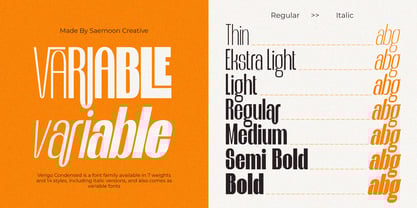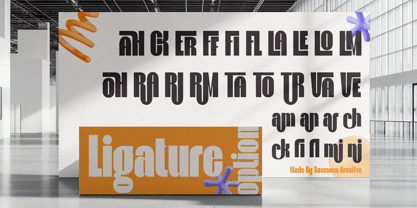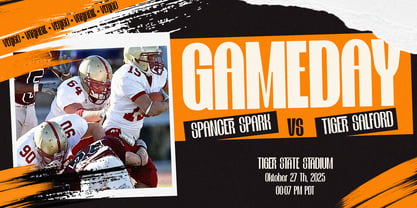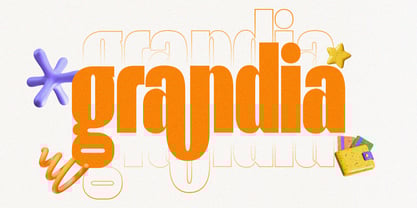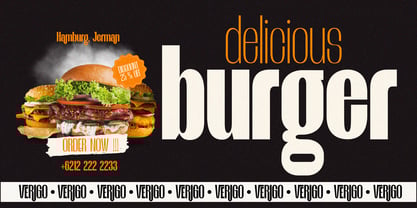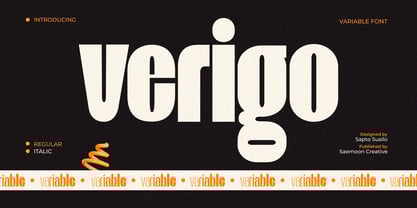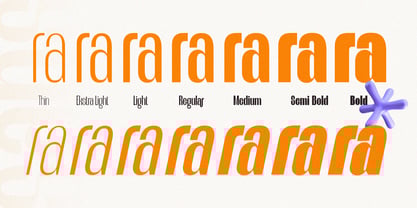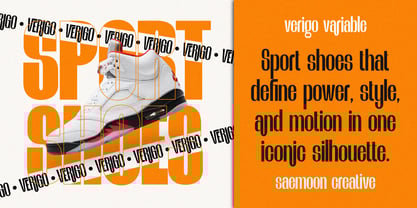
Sc Verigo variable
by Saemoon Creative
The Sc Verigo variable Font Family was designed by Sapto Susilo and published by Saemoon Creative. Sc Verigo variable contains 2 styles and family package options.
Verigo is a bold and modern variable font that blends strong geometric forms with smooth curves, making it highly versatile for a wide range of design projects. Its tall, condensed letterforms deliver a striking presence, while the variable feature allows flexible adjustments to perfectly suit your creative needs.
Available in Regular and Italic styles, Verigo is ideal for branding, editorial design, posters, packaging, and digital use. With its contemporary style and high legibility, it offers both impact and elegance in every composition.
Features:
• Variable Font
• Regular & Italic Styles
• Perfect for Display, Logos, Headlines, and Branding
Published by Saemoon Creative and designed by Sapto Susilo, Verigo gives you the freedom to experiment and adapt typography seamlessly across different mediums.